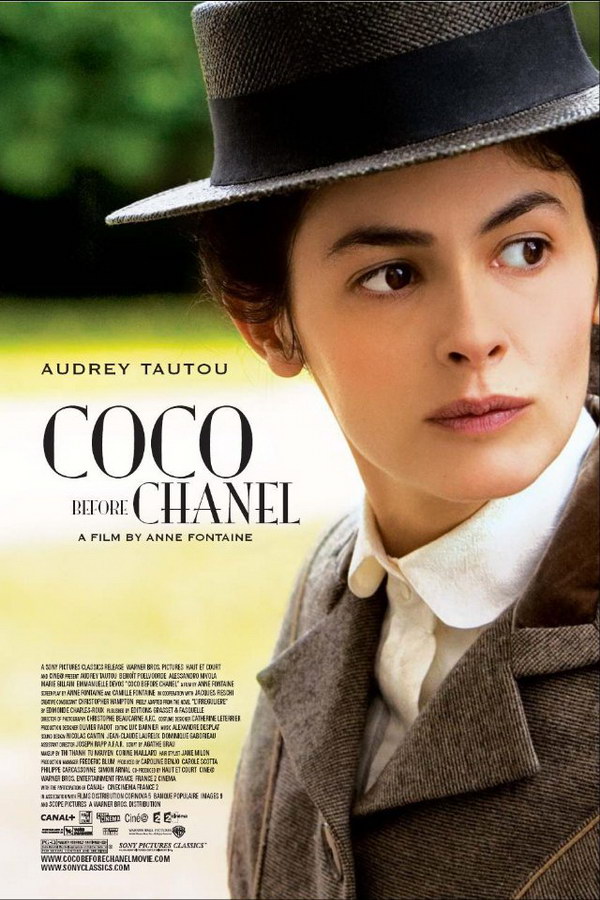
Coco Before Chanel Font
BiographyCoco Before Chanel, or Coco Avant Chanel in French, is a 2009 biographical drama film directed and co-written by Anne Fontaine. Featuring Audrey Tautou, the film tells the story of Coco Chanel's early life from her humble beginnings as an orphan in a convent to her rise to fame as one of the most influential fashion designers of the 20th century.
Coco Before Chanel's title is written in ITC Mono Lisa Solid font. ITC Mona Lisa is a contemporary typeface with a striking contrast between thin and broad letter strokes, like Bodoni, Didot, etc. Pat Hickson created it in 1991. You can view more details about the typeface here.